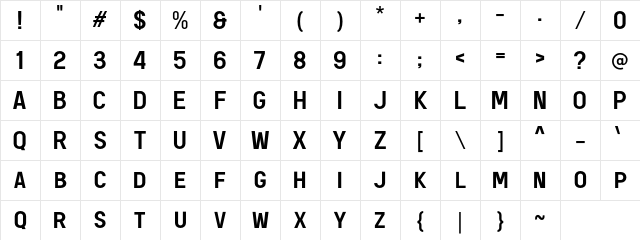
Complete a Area Kilometer 50 Regular glyph index. Displaying only characters natively supported by a Area Kilometer 50 Regular font.
a Area Kilometer 50 is a composed and adaptable typeface that performs quietly and consistently across a wide range of design contexts.